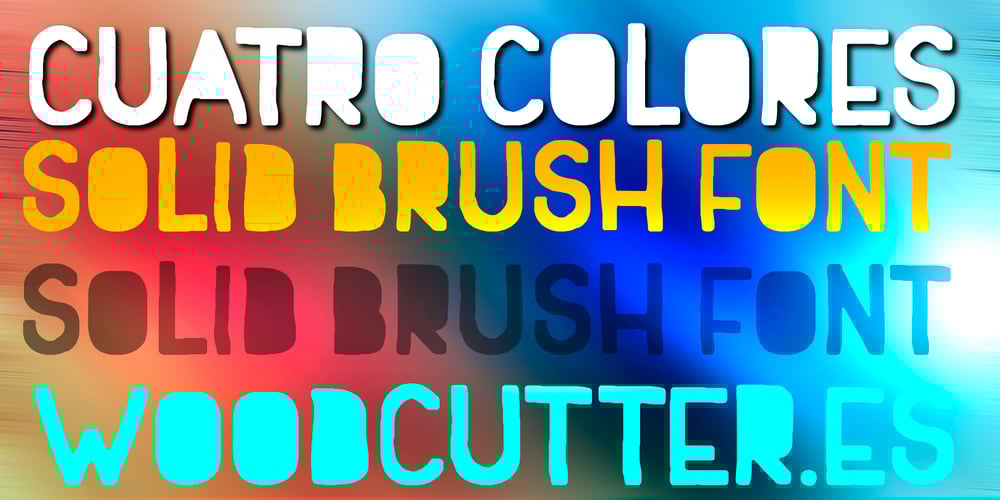
Cuatro Colores Font Family was designed by Jordi Manero and published by Woodcutter. Cuatro Colores contains 1 styles and family package options. “Cuatro Colores” is a robust and solid typeface that stands out with its rough, handcrafted strokes. Each uppercase letter is precisely designed, featuring a firm character and an imposing presence. The filled-in gaps within the letters provide a uniform and powerful appearance. The accents are perfectly integrated, adding functionality without compromising the aesthetic design. Ideal for posters, headlines, and designs that require a handcrafted and bold touch, “Cuatro Colores” conveys strength and authenticity, bringing a sense of manual labor and dedication to each letter.